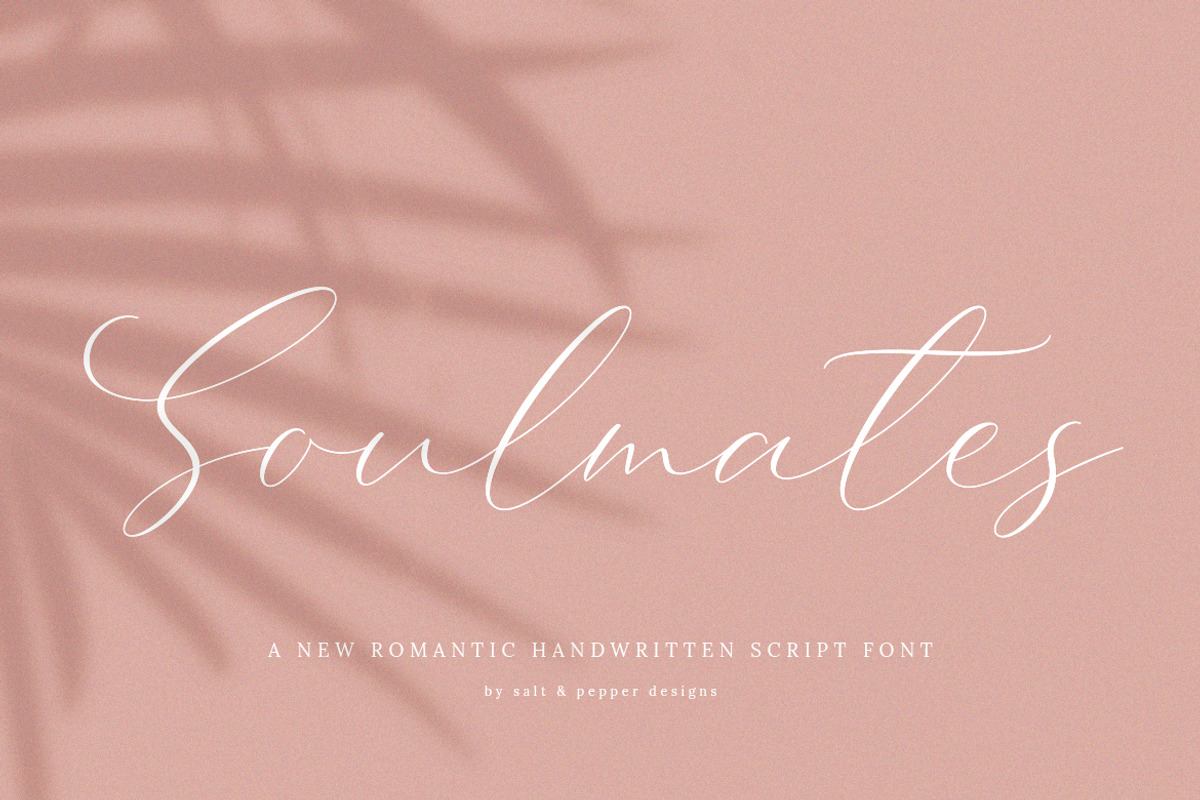
NEW Soulmates Script Font Free Download
NEW Soulmates Script Font Free Download is an elegant and romantic handwritten typeface designed to add a personal, artistic touch to your designs. Featuring flowing, cursive-style strokes, this font is perfect for wedding invitations, branding, logos, social media graphics, and anything that needs a sophisticated, romantic feel.
The smooth, fluid strokes of the script provide an elegant and timeless appearance, making it ideal for high-end design projects that require a personal, handwritten aesthetic. Whether you're designing for a boutique, crafting a logo, or creating invitations, NEW Soulmates adds charm and personality to your typography.